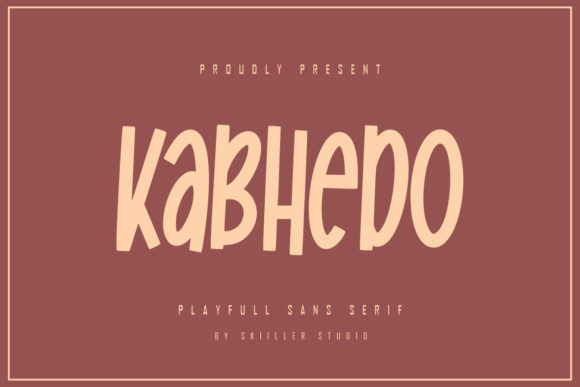
Behold Kabhedo Font, a playful and adaptable sans serif font, meticulously crafted by Skiiller Studio. Its simple yet captivating design makes it a versatile choice for an incredibly diverse range of projects. Unleash your creativity and witness how effortlessly Kabhedo elevates your designs, making them shine brighter than ever before.
Kabhedo's clean lines and elegant curves exude a timeless charm, ensuring it remains relevant and captivating, regardless of the project's nature. Its versatility extends far and wide, seamlessly adapting to logos, branding, headlines, posters, web designs, and even the written word. Kabhedo's adaptability makes it a true asset to any designer's toolkit, providing endless possibilities to bring your creative visions to life.
With Kabhedo, you hold the power to evoke emotions, convey messages, and leave a lasting impression. Its playful personality adds a touch of whimsy, while its clean lines and simplicity exude professionalism and sophistication. Whether you're creating a logo for a playful brand or crafting an elegant poster, Kabhedo is the font that seamlessly adapts to your needs, enhancing your message and captivating your audience.
Embark on a creative journey with Kabhedo Font, where boundaries dissolve, and possibilities become limitless. Its versatility and adaptability make it an indispensable tool for designers seeking to create impactful visuals that resonate with audiences. Experience the joy of designing with Kabhedo and witness how it transforms your creative ideas into captivating masterpieces.